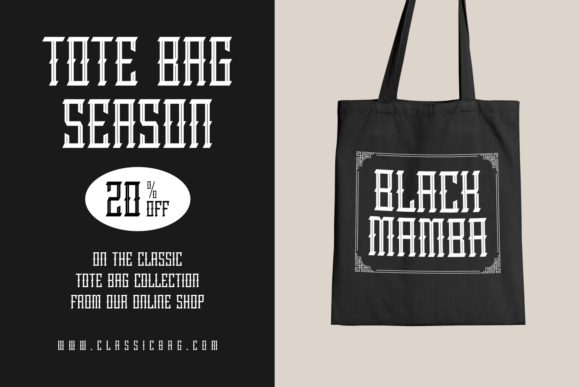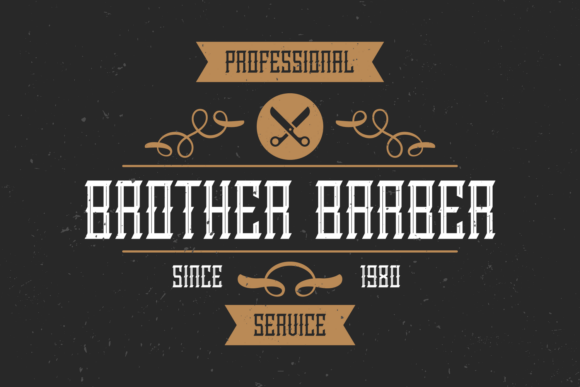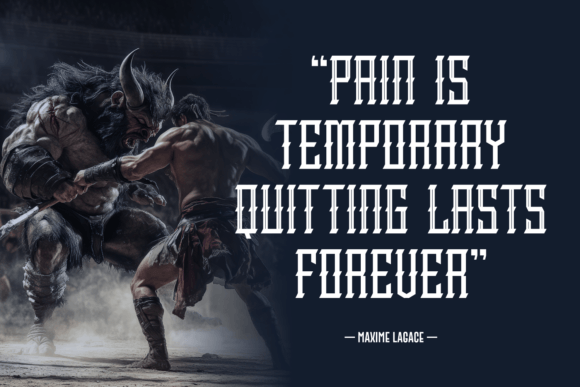
Introduction to Megazeuz Font
Megazeuz is a vintage blackletter font that blends traditional gothic style with a timeless, powerful presence.
Featuring bold, ornate letterforms and intricate details, it evokes the spirit of medieval manuscripts Perfect for creating striking designs with a touch of historical elegance and dramatic flair.
Key Features of Megazeuz Font
Why Choose Megazeuz Font?